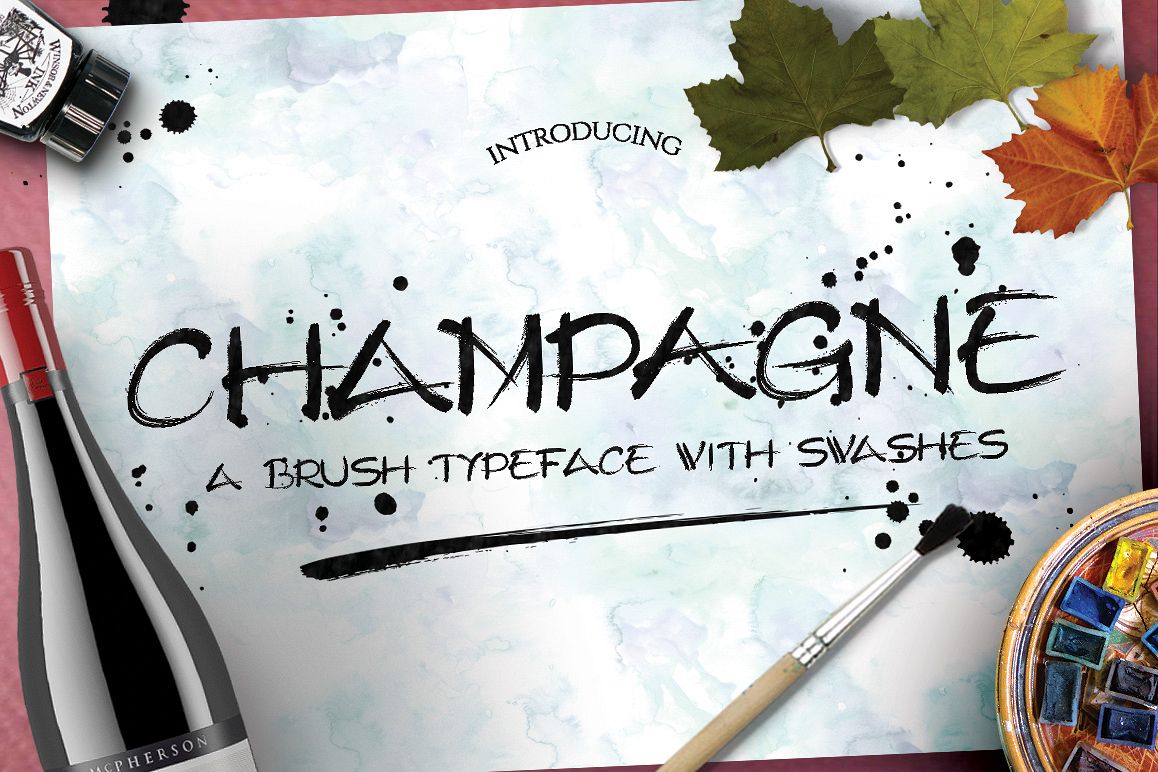
Champagne Typeface
Introducing "Champagne Brush Typeface"
Can be used for various purposes namely headings, logos, wedding invitations, t-shirts, letterheads, signages, labels, news, posters, badges etc.